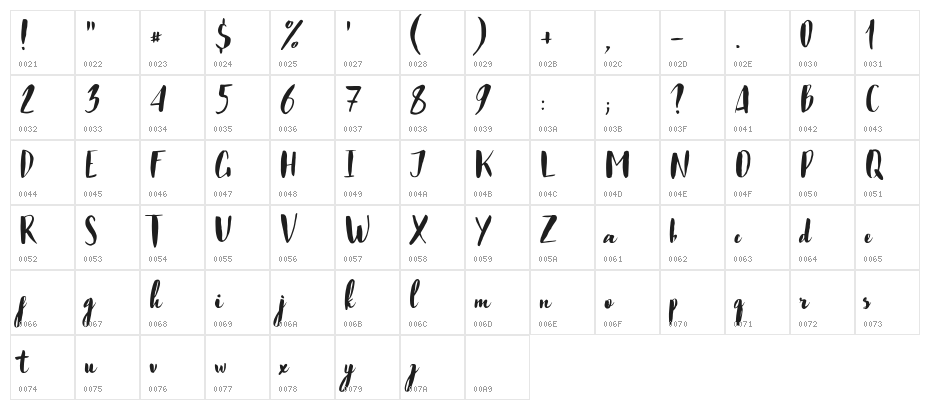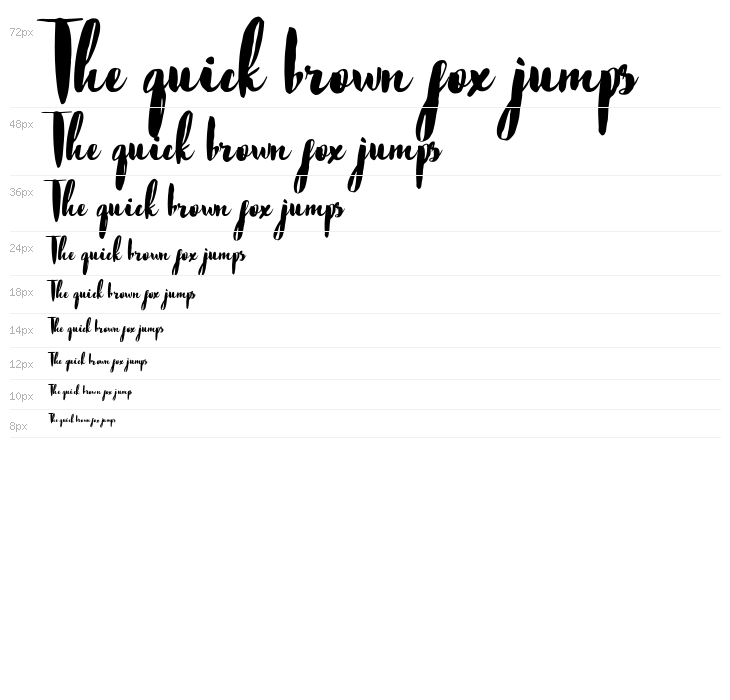
Just Believe Font
Just Believe Description
This font features a bold and expressive handwritten style, characterized by its fluid and dynamic strokes. The uppercase letters are tall and slightly slanted, giving a sense of movement and energy. The lowercase letters maintain a consistent flow, with some characters featuring unique loops and curves that add to the font's charm. The numerals are bold and clear, ensuring readability while maintaining the overall aesthetic. Special characters are creatively designed, fitting seamlessly with the rest of the font. This typeface exudes a sense of creativity and spontaneity, making it perfect for projects that require a personal and artistic touch.